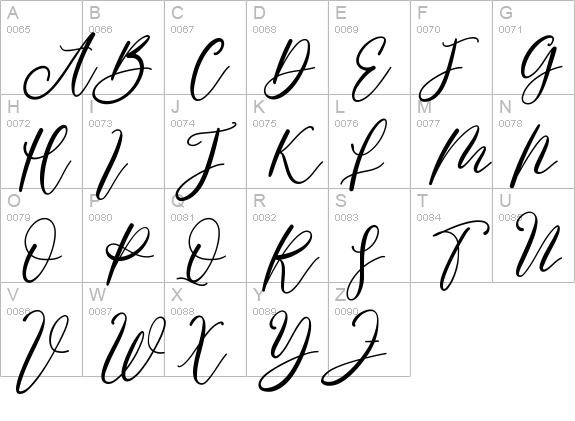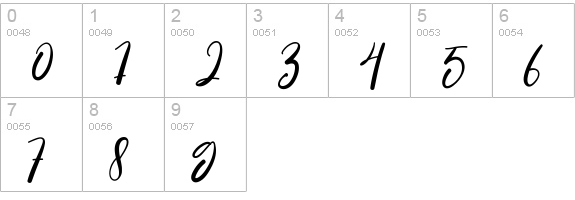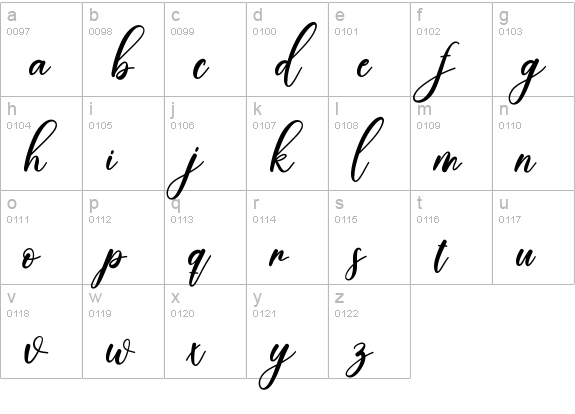
Calligraphy Brilliant Font Details
Calligraphy Brilliant is a free for personal use font in the Script > Handwritten category, designed by scratchones. It has been downloaded 47 times and is available for Windows, Mac and Linux.
Introducing Calligraphy Brilliant font, a stunning script typeface that exudes elegance and sophistication. With its intricate strokes and graceful curves, this font brings a touch of refinement to any design project. Whether you are creating wedding invitations, branding materials, or social media graphics, Calligraphy Brilliant font is sure to make a statement.